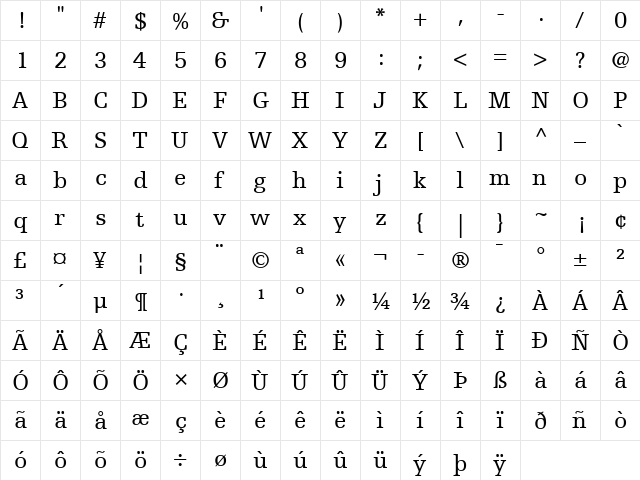
EgyptienneF LT Roman Regular Font Preview
EgyptienneF LT Roman Regular
Design Context for EgyptienneF LT Roman Typeface
EgyptienneF LT Roman takes a measured approach to typography — its balanced proportions and neutral character make it a reliable workhorse for both digital and print work. The delicate stroke weight brings airiness and refinement to layouts.